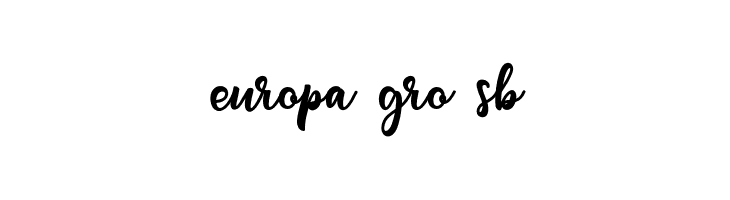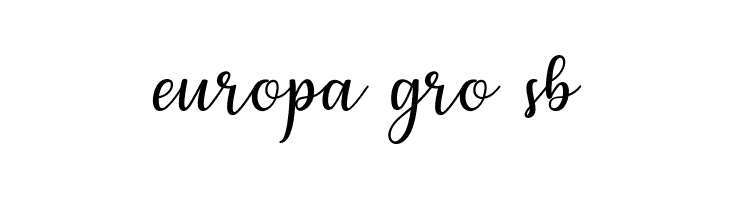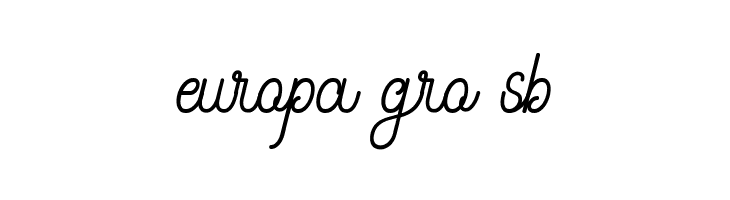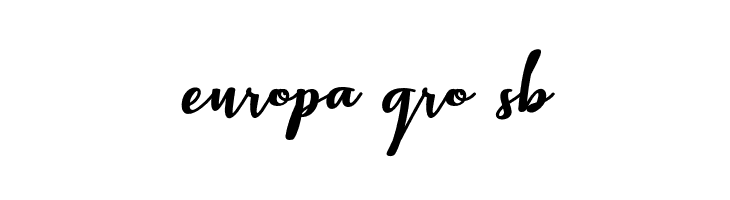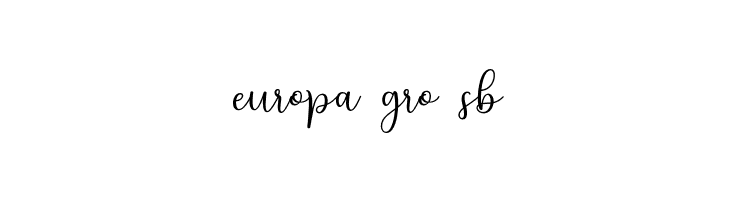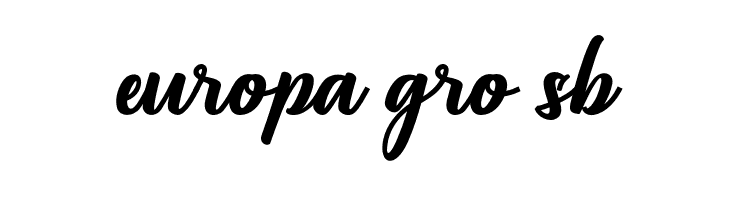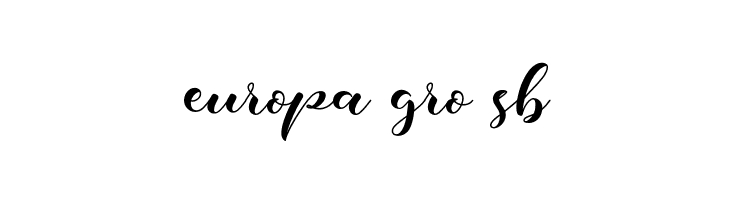
A modern, cursive font with elegant strokes and artistic flair.
A playful script font with looping, interconnected letterforms.
A decorative cursive font with elegant, flowing characters.
A graceful and elegant script font with flowing cursive letterforms.
A modern, elegant script font with flowing, interconnected characters.
A flowing, cursive script font with elegant, connected strokes.
A dynamic and elegant script font with fluid, connected letterforms.
An elegant, flowing script font with ornate uppercase and smooth lowercase letters.
A bold, flowing script font with elegant curves and high contrast.
A sophisticated script font with elegant, flowing cursive strokes.